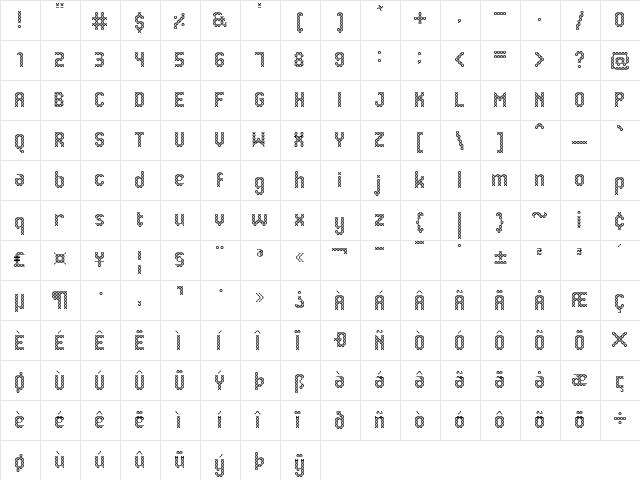
Eenvoudige Batik Regular
| Designer | Adien Gunarta |
Design Context for Eenvoudige Batik Typeface
Eenvoudige Batik is a composed and adaptable typeface that performs quietly and consistently across a wide range of design contexts.